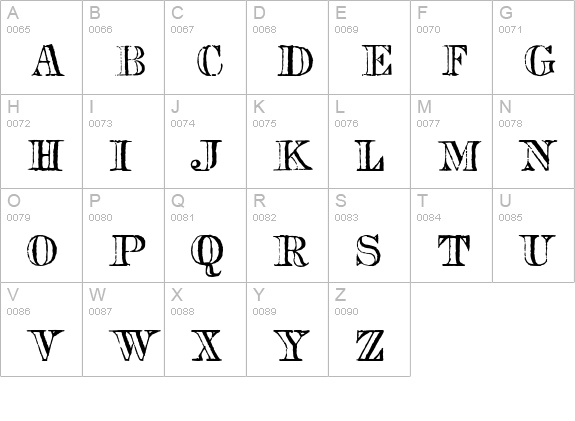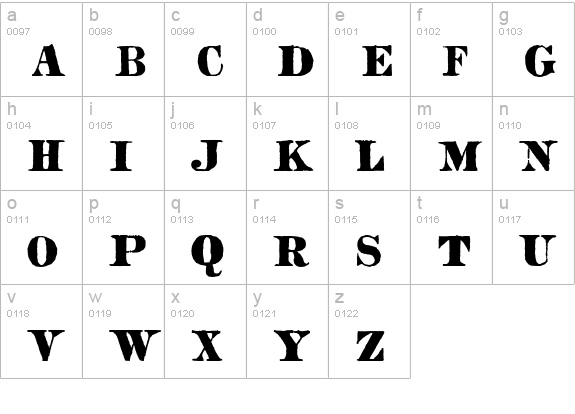
Roman Engraved HPLHS Font Details
Introducing the exquisite Roman Engraved HPLHS font, a timeless and sophisticated typeface that exudes elegance and charm. This beautifully designed font features intricate engravings and classic Roman-inspired letterforms, making it perfect for adding a touch of refinement to your projects. The Roman Engraved HPLHS font is versatile and can be used for a wide range of design purposes, from invitations and branding to posters and packaging. Its clean lines and ornate details make it a standout choice for anyone looking to elevate their designs with a touch of old-world charm. Best of all, the Roman Engraved HPLHS font is available for free download at FontsMarket.com. Now you can add this stunning font to your collection without breaking the bank. Don't miss out on the opportunity to enhance your designs with this timeless and elegant typeface. Download the Roman Engraved HPLHS font today and bring a touch of sophistication to your projects.